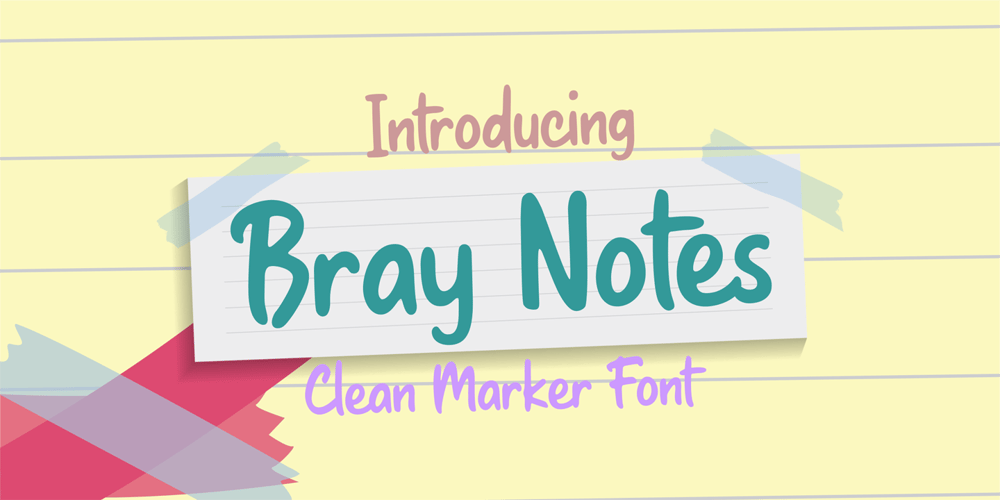
Bray Notes
Bray Notes font
Bray Notes Font Family was designed by Ali Hamidi and published by Brithos Type. Bray Notes contains 1 styles and family package options. Bray Notes is a marker-style script font with casual style. Use it for any design project that requires a personalized appearance!